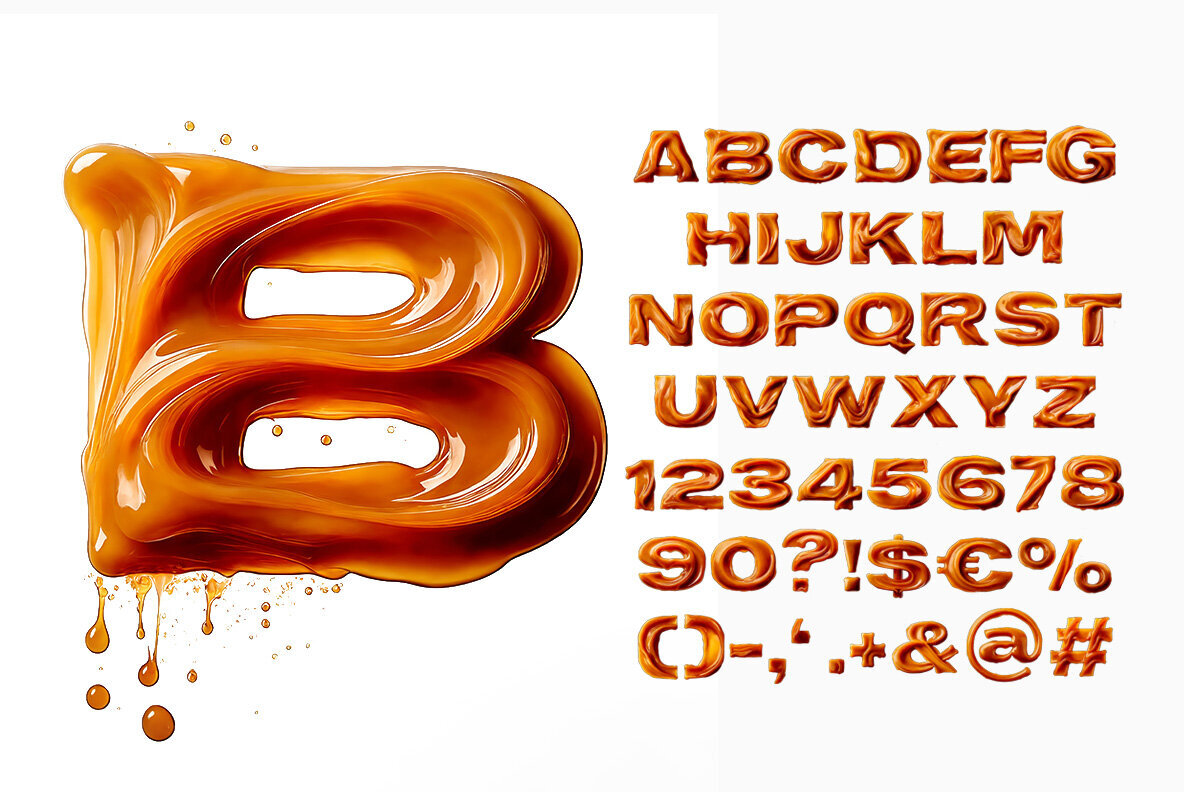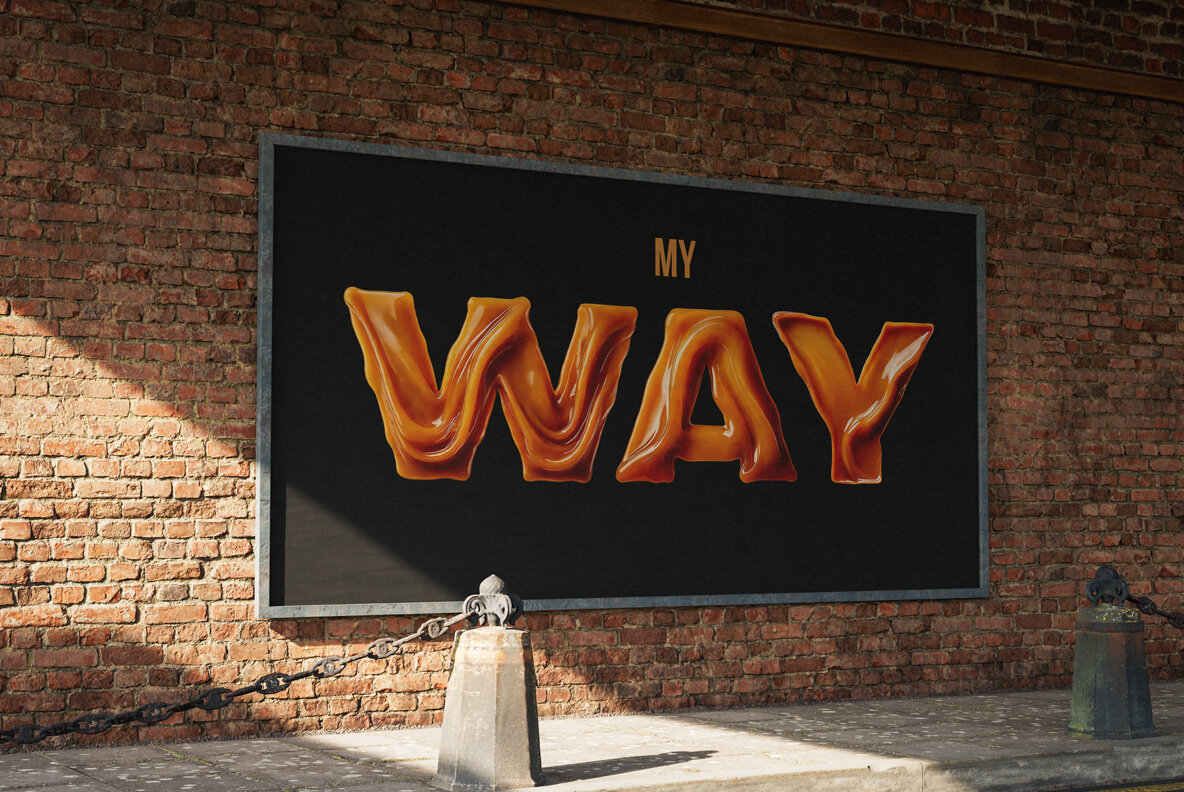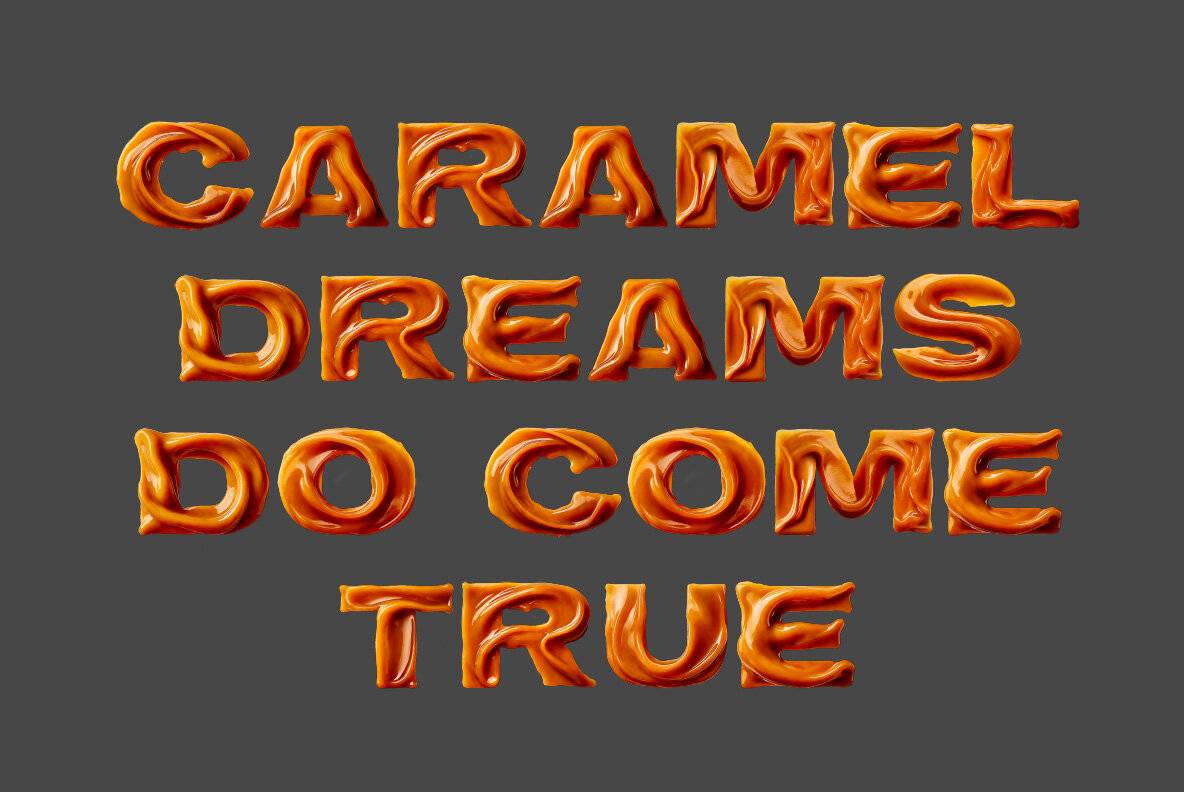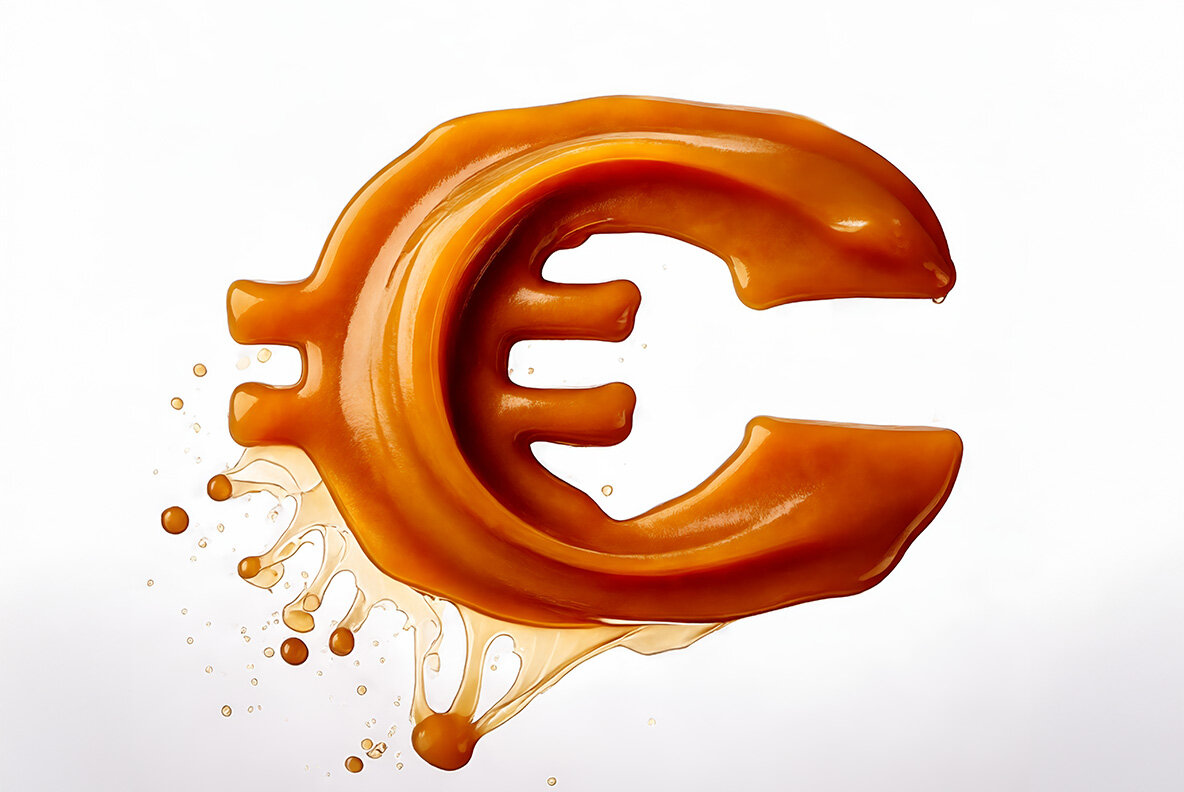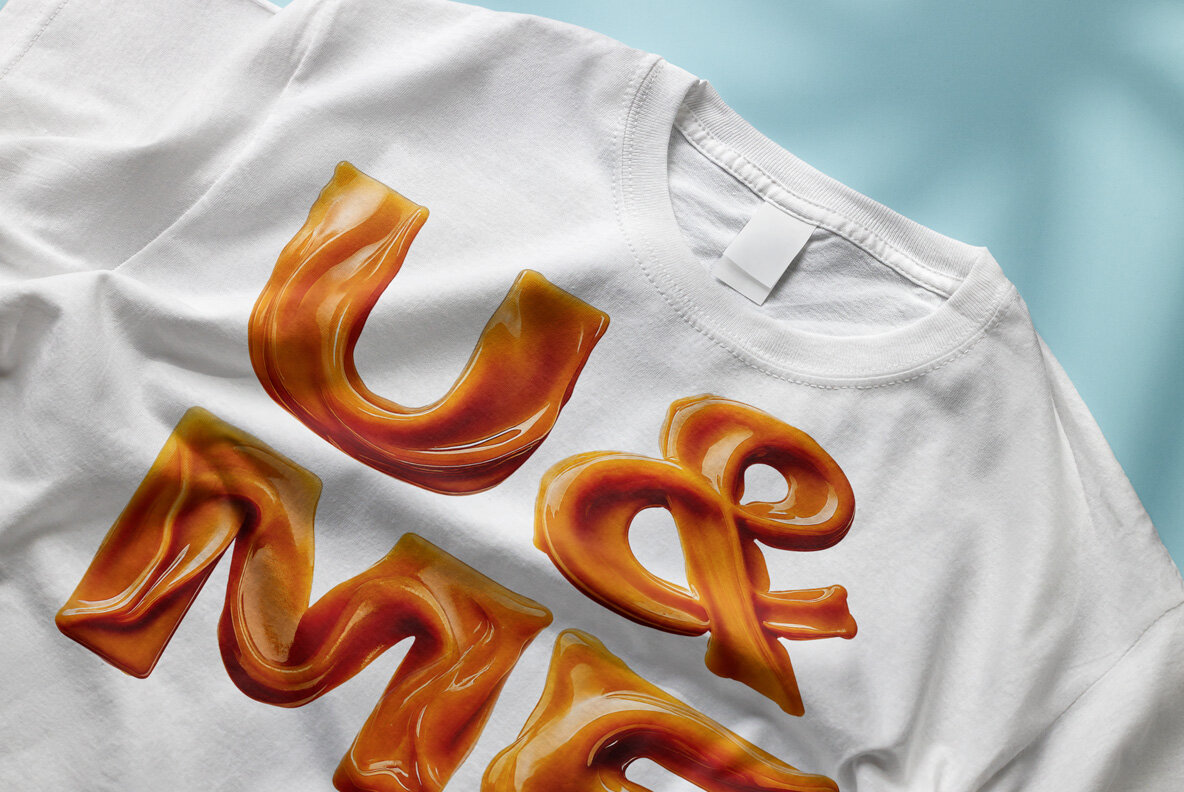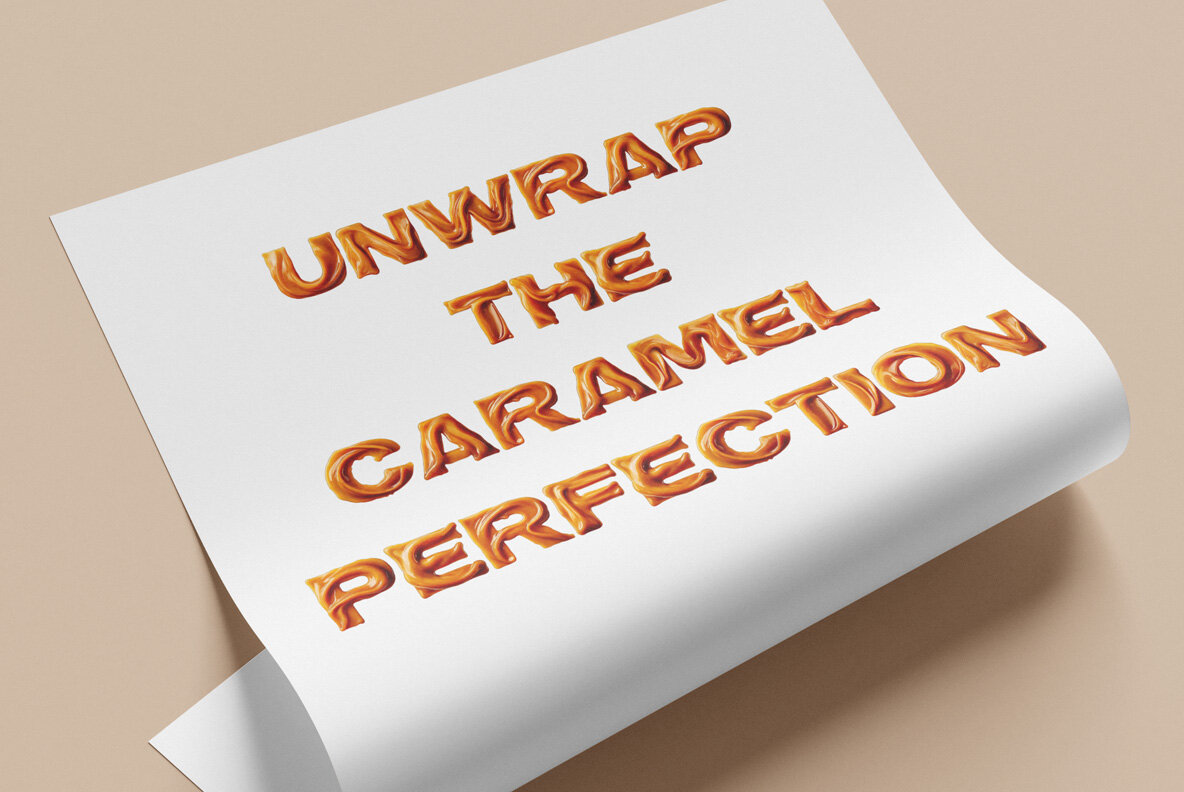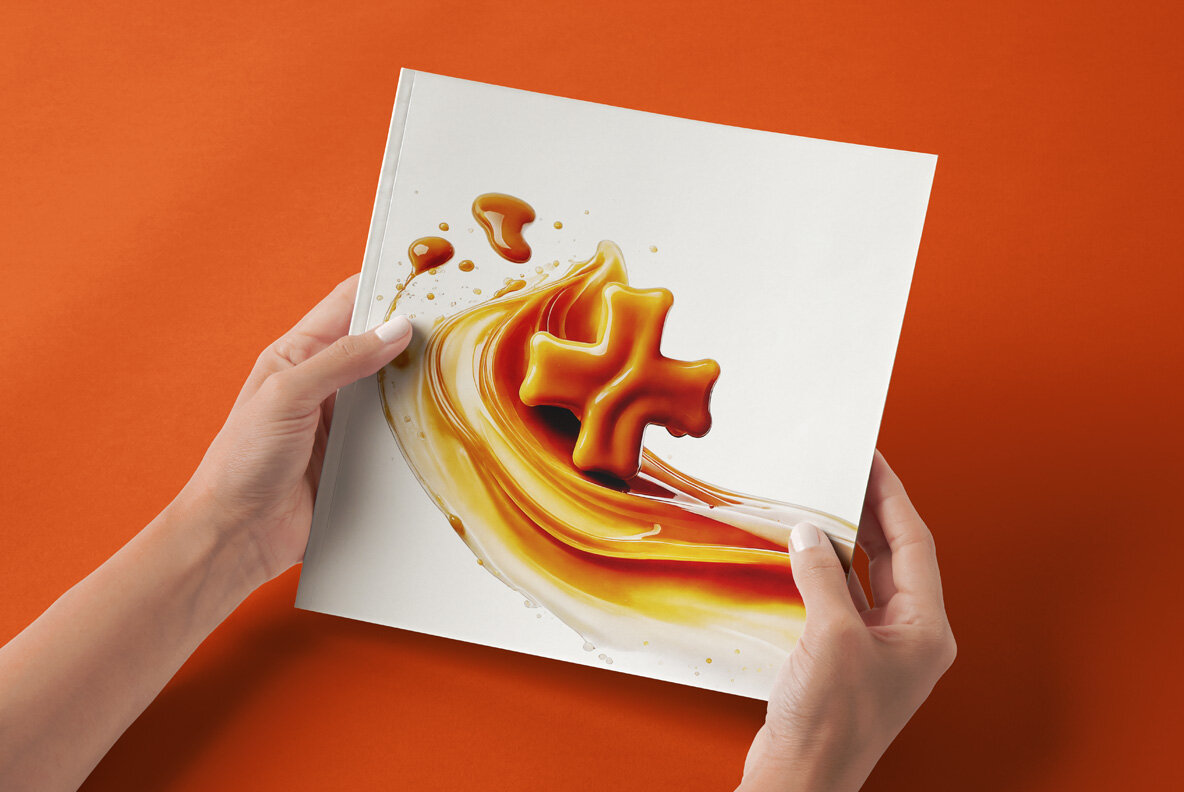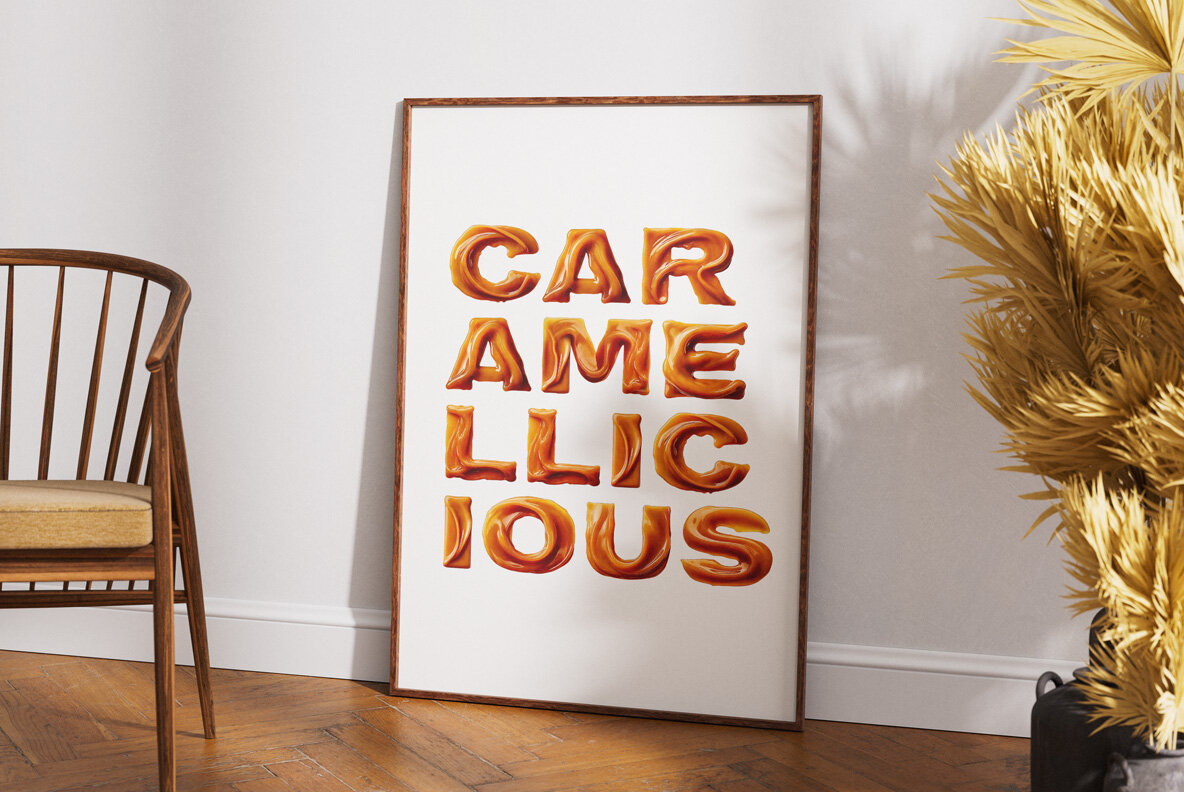
Experience the delightful allure of this melted caramel-inspired typeface, perfect for adding a sweet touch to your designs. The smooth, flowing letters radiate warmth and richness, making it an ideal choice for cozy, inviting projects. Whether you're crafting a whimsical invitation or a playful promotional piece, this font brings a touch of indulgence that can seamlessly blend into your creative endeavors. The font includes uppercase characters, numerals, and basic punctuation, offering versatility for various design applications.